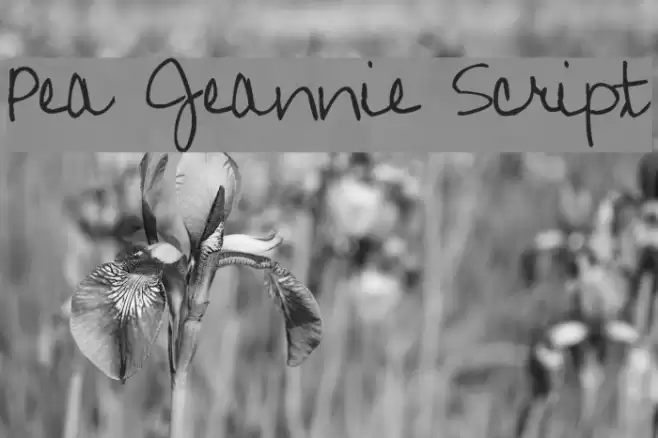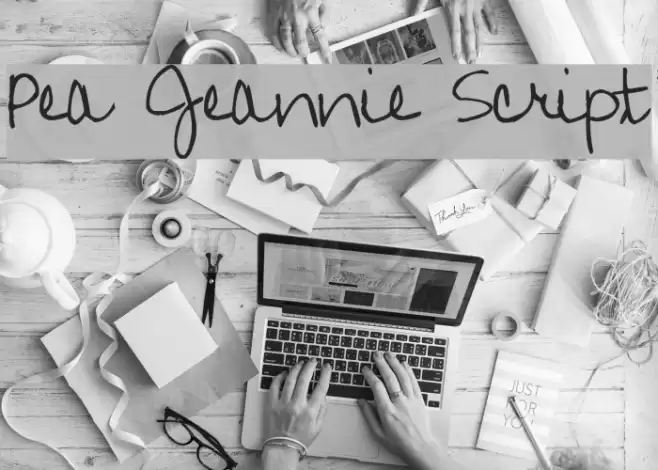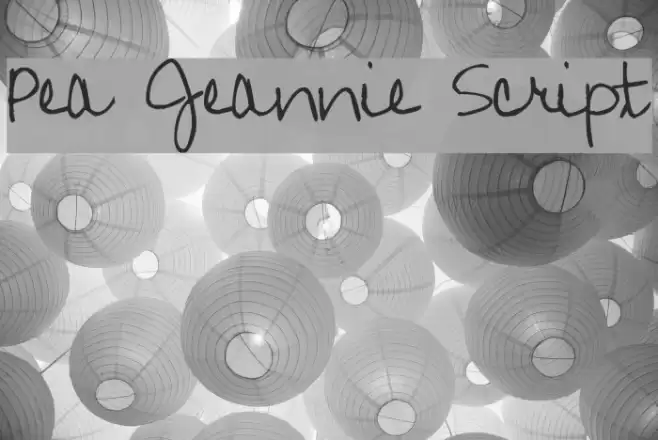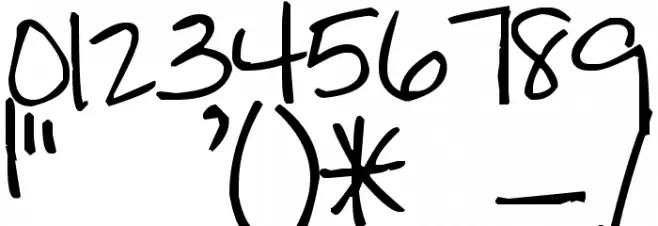
Pea Jeannie Script Font
Pea Jeannie Script Description
This font exudes a casual and playful handwritten style, characterized by its flowing, cursive-like strokes. The letters are slightly slanted, giving a natural and informal appearance. The uppercase letters maintain a consistent height, while the lowercase letters vary in size, adding to the font's dynamic and lively feel. The numbers and special characters follow the same handwritten aesthetic, ensuring a cohesive look across all glyphs. This font is perfect for projects that require a personal touch, such as greeting cards, invitations, or social media graphics.
A playful, handwritten font with a casual, cursive-like style from Uncategorized fonts.
- Proposed Projects: Ideal for greeting cards, invitations, personal notes, and social media graphics.
- Overall Style: Casual, Playful
- Use Case: Headlines, Informal text, Personal projects